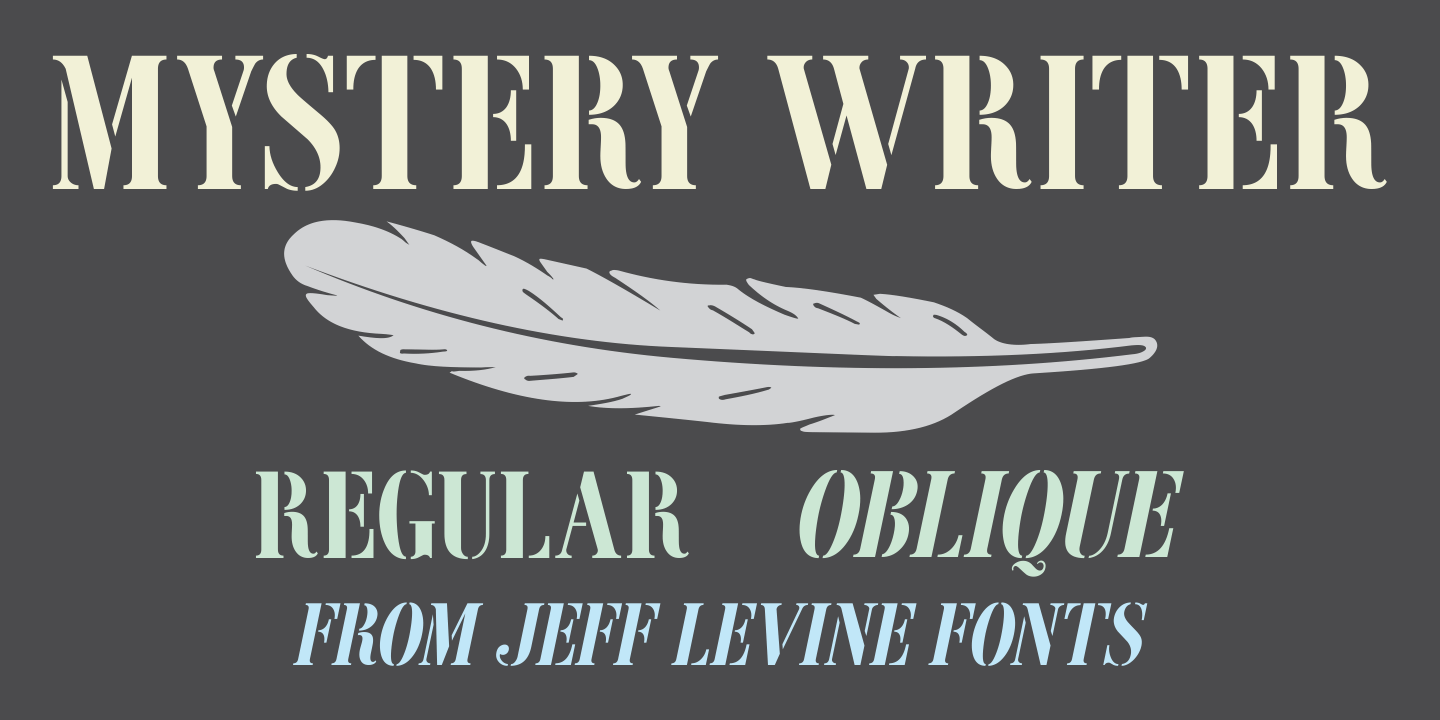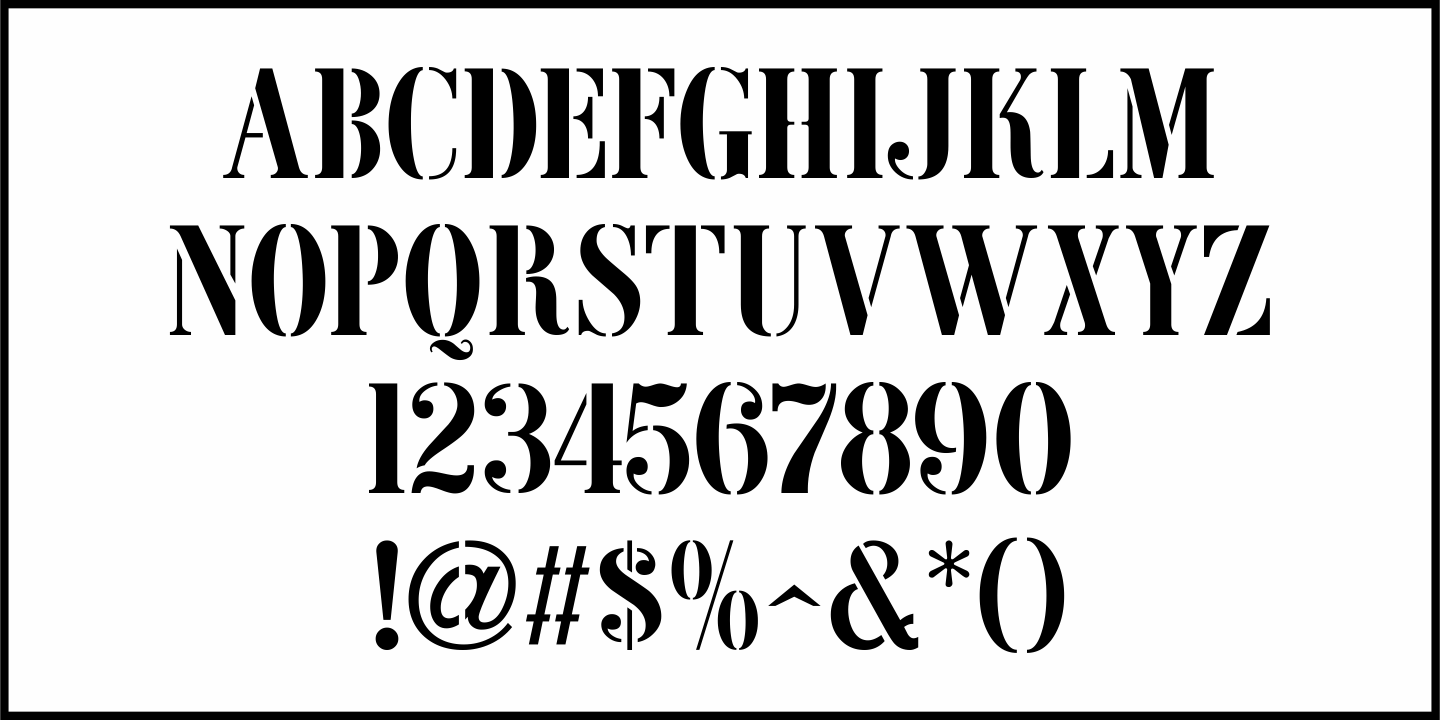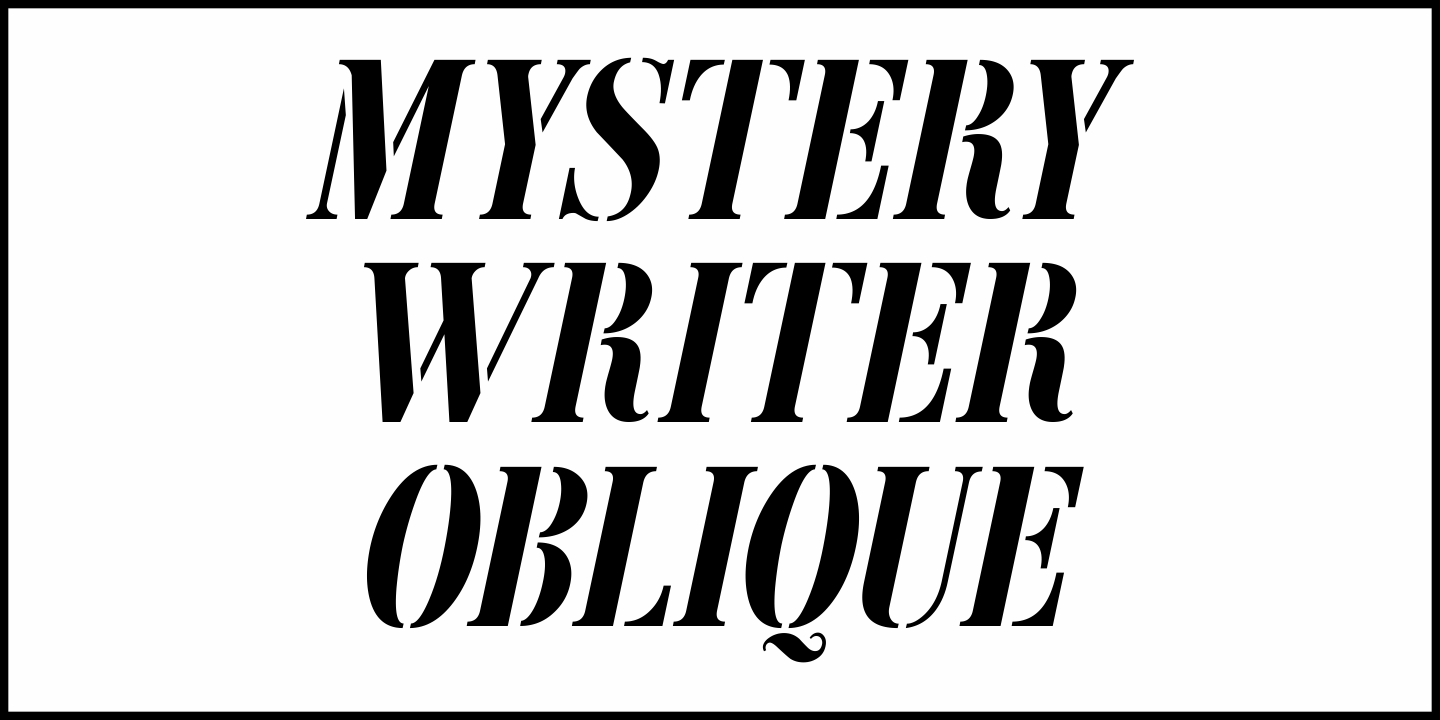
Mystery Writer
Mystery Writer JNL is based on the hand lettered title from the cover of a 1947 issue of “Ellery Queen’s Mystery Magazine”, and is available in both regular and oblique versions.
Mystery Writer JNL Regular
Mystery Writer JNL Oblique